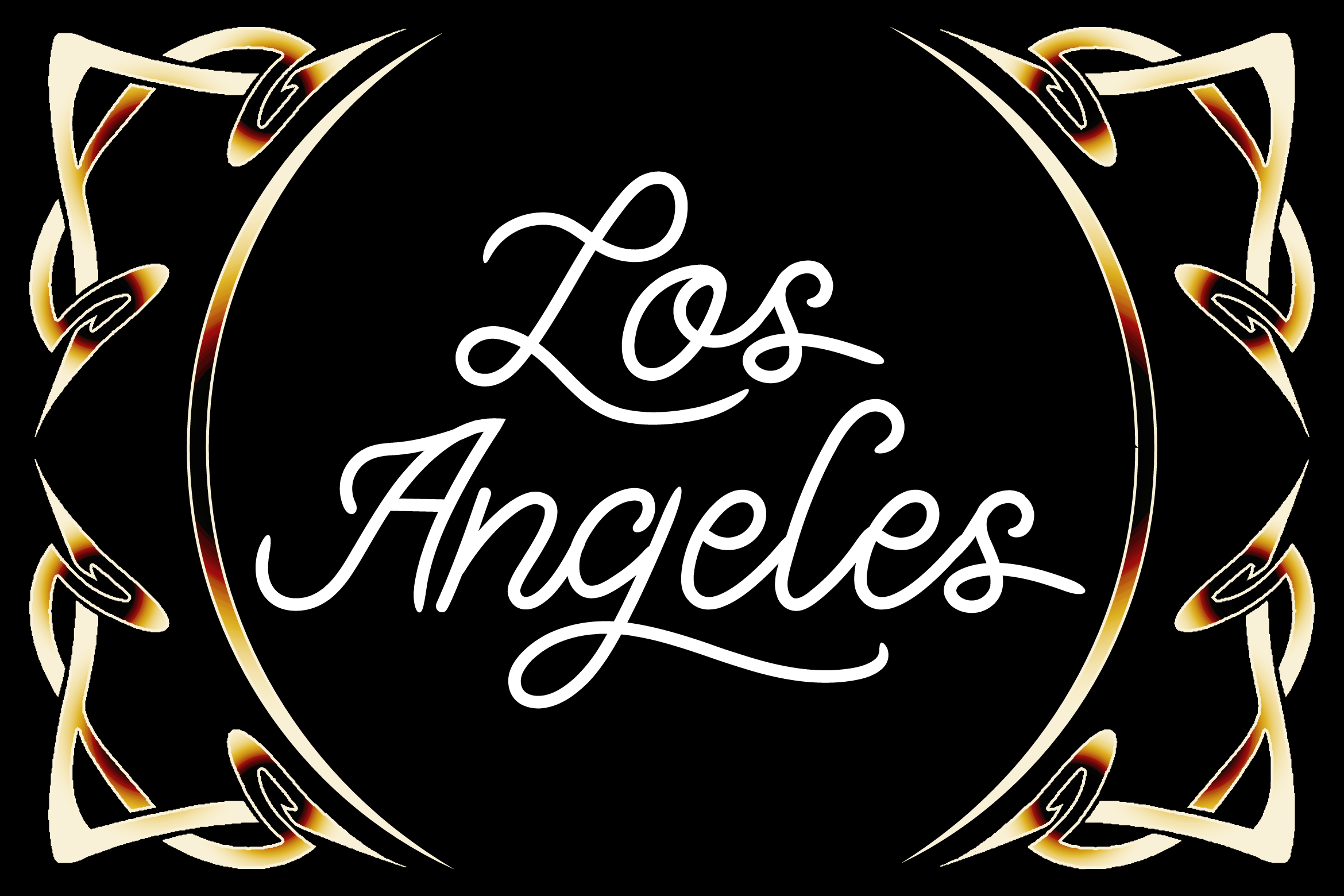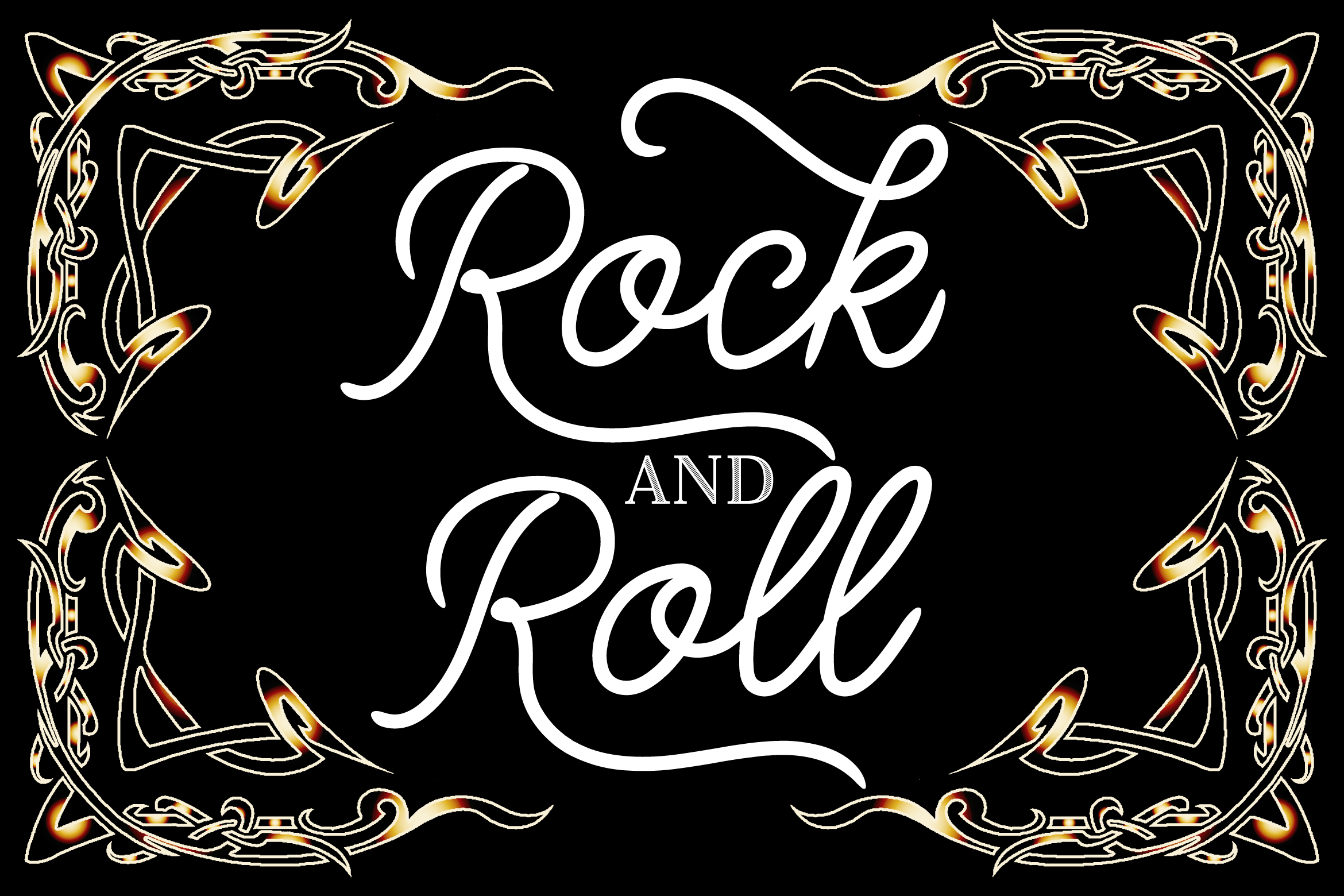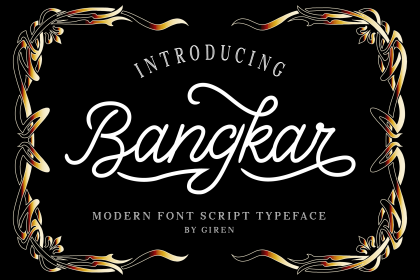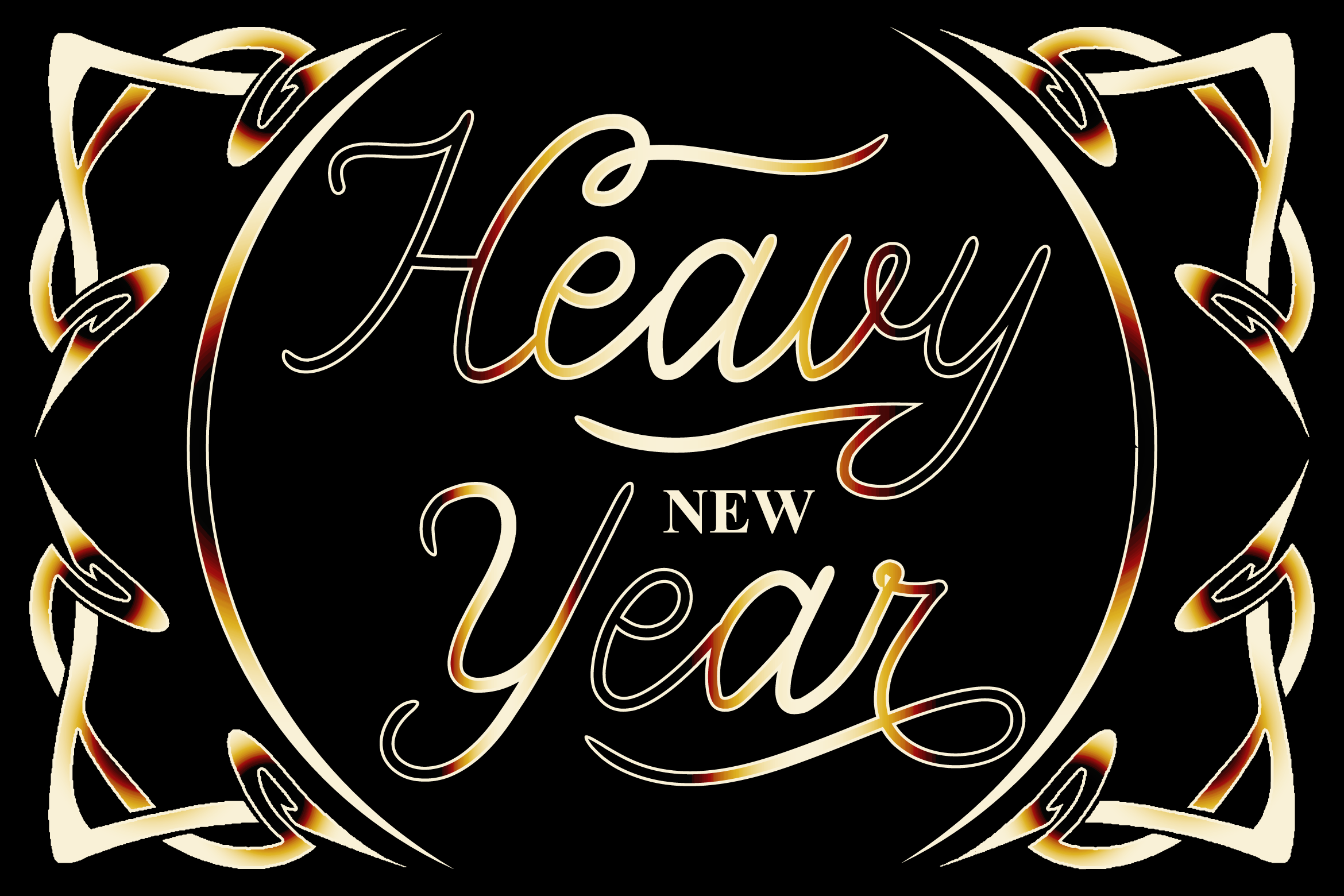
Bangkar Script Font
we just launched a new font called “Bangkar”.
This font is suitable for logos, clothing, quotes, business cards, posters, watermarks, signatures, magazines, web, hand-made, and others.
with a natural touch, this font is the best choice for you.